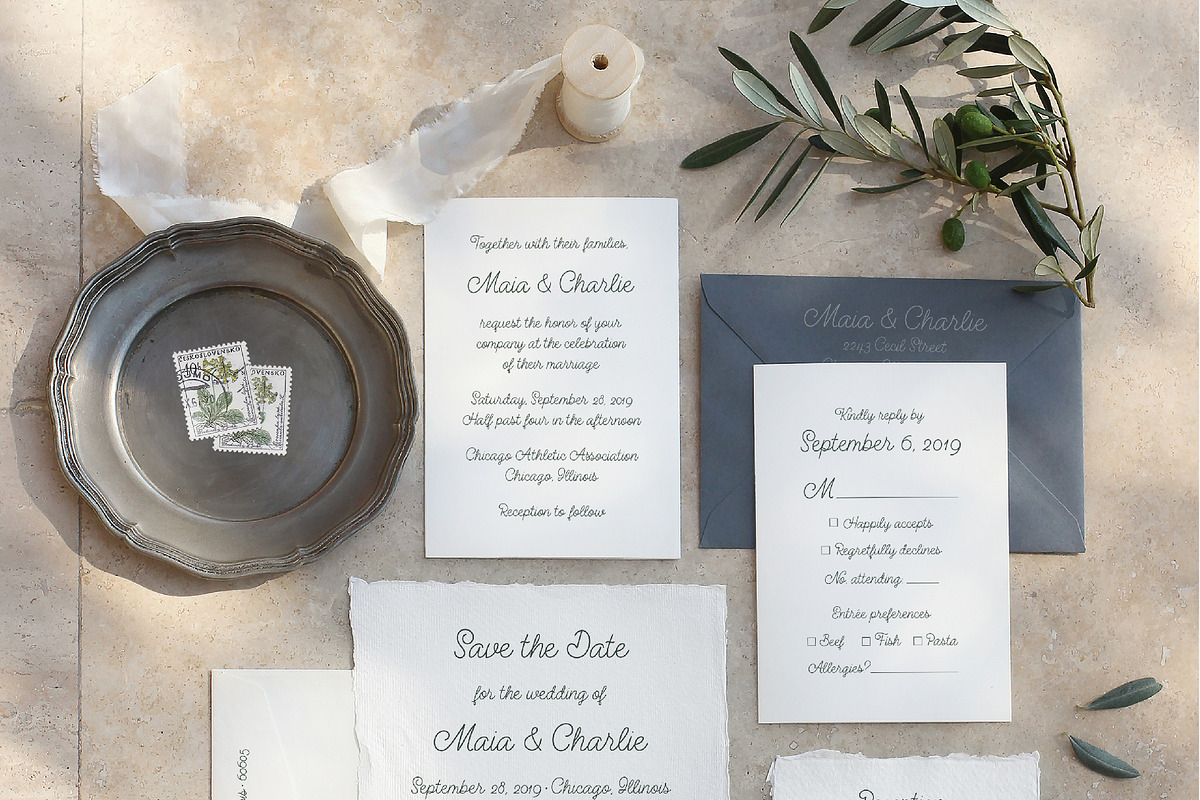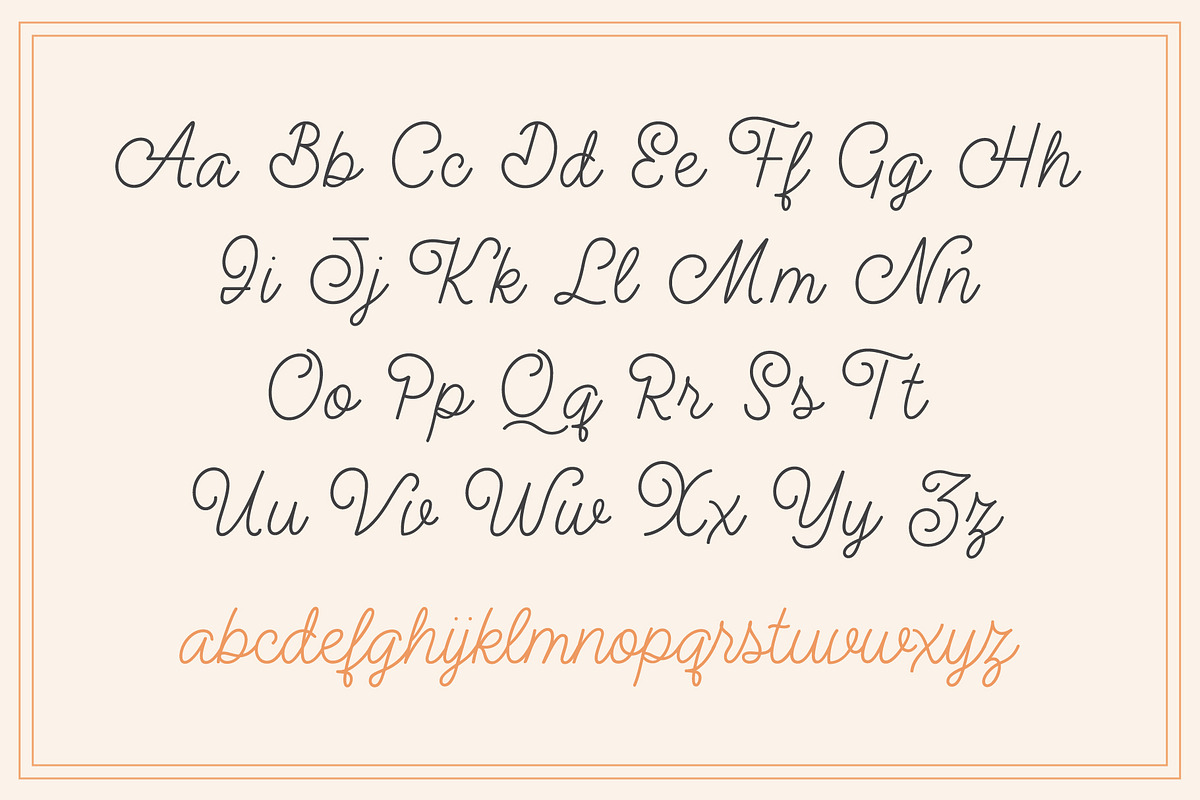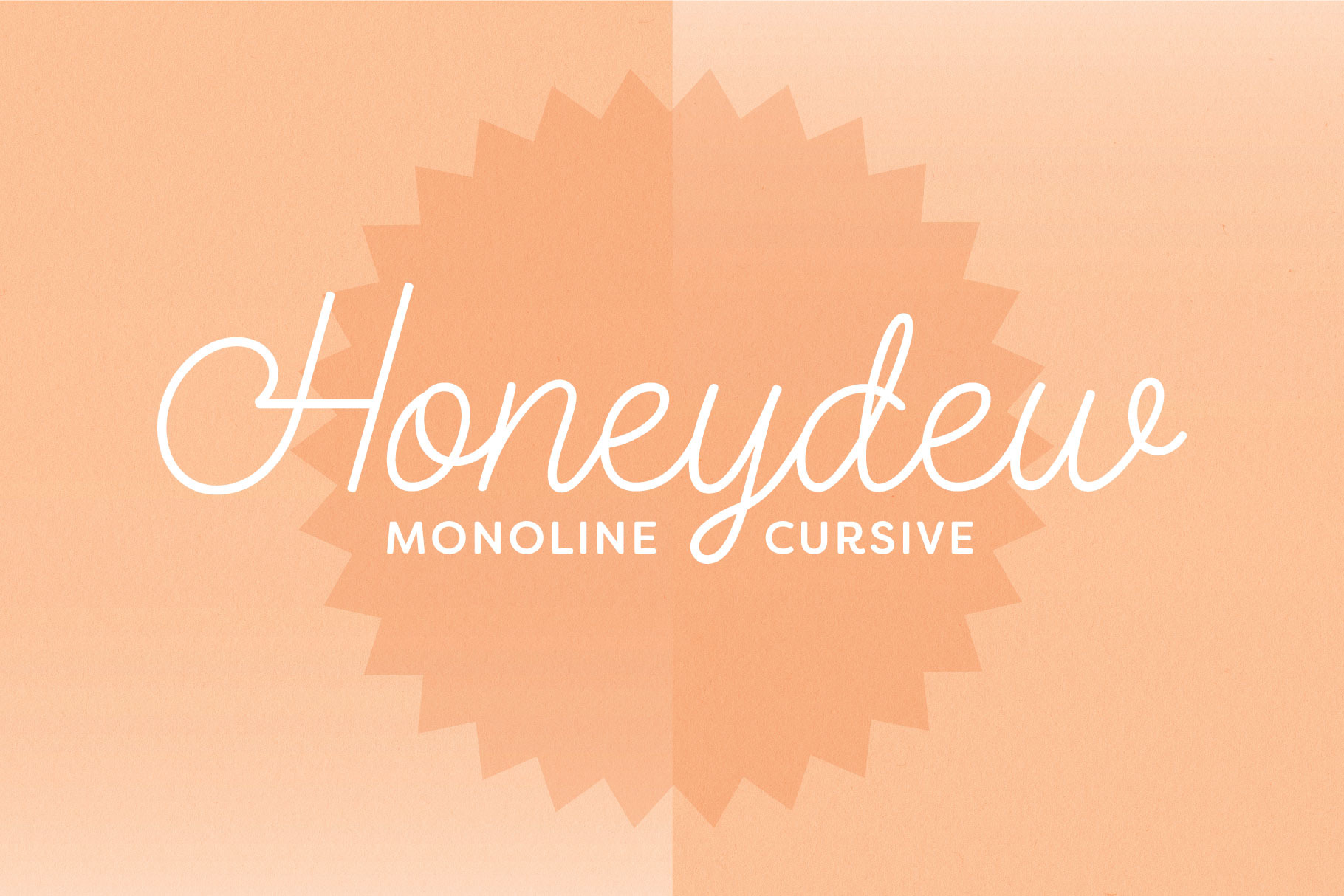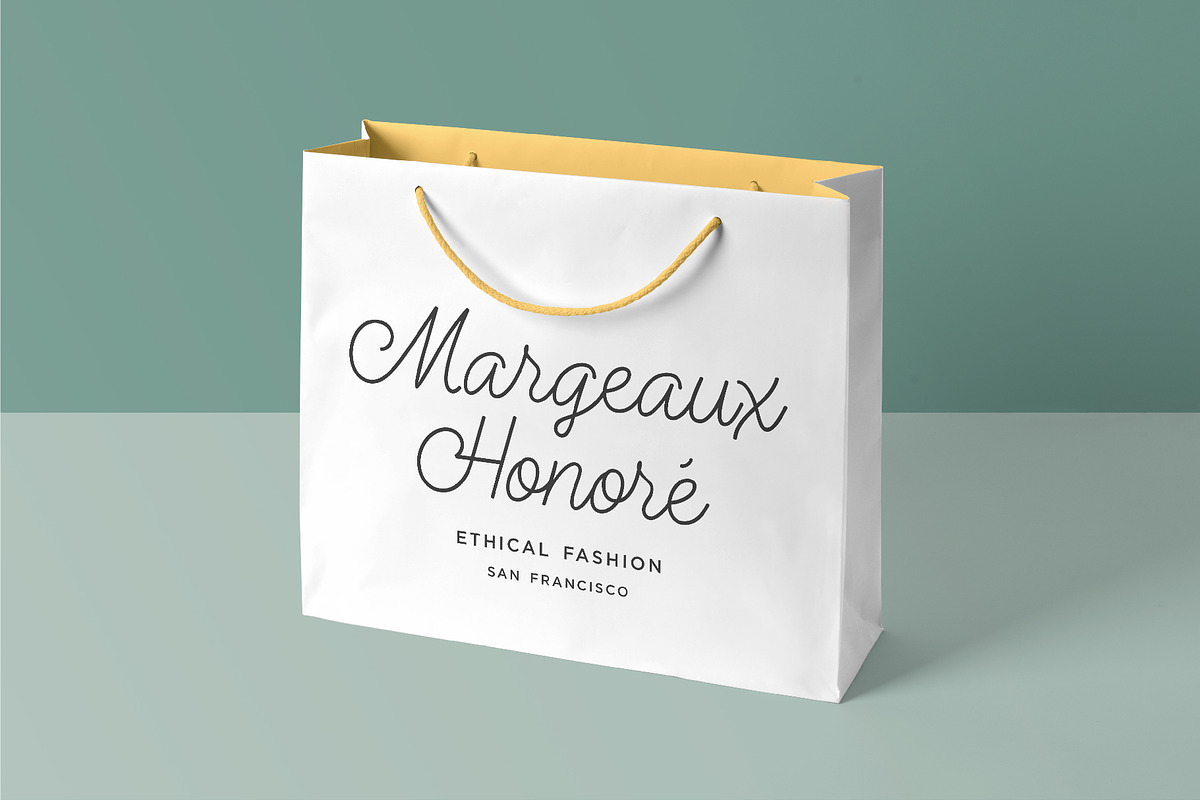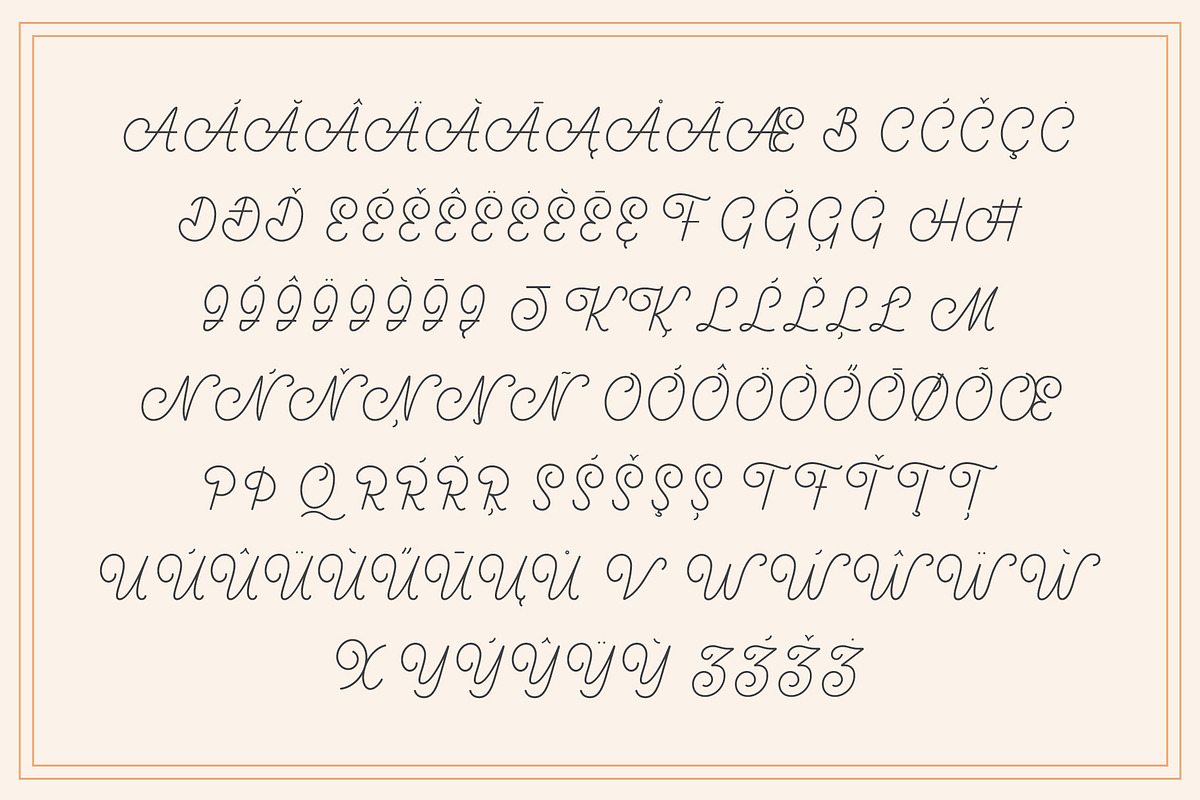
Honeydew Script Calligraphy Font
Honeydew Script: A Light, Whimsical, Soft & Bright Font
Honeydew is a calligraphic font in a monoline script style. It is a modern twist on classic schoolhouse cursive, and is extremely versatile. Use this typeface for branding, social media, weddings, stationery, packaging, layout design, and advertising. The sky's the limit!
Honeydew has 527 glyphs, including the complete Latin alphabet (upper and lowercase), numbers (lining, old style, fractions, super/subscript), punctuation, and diacritics, and over 40 standard and discretionary ligatures.